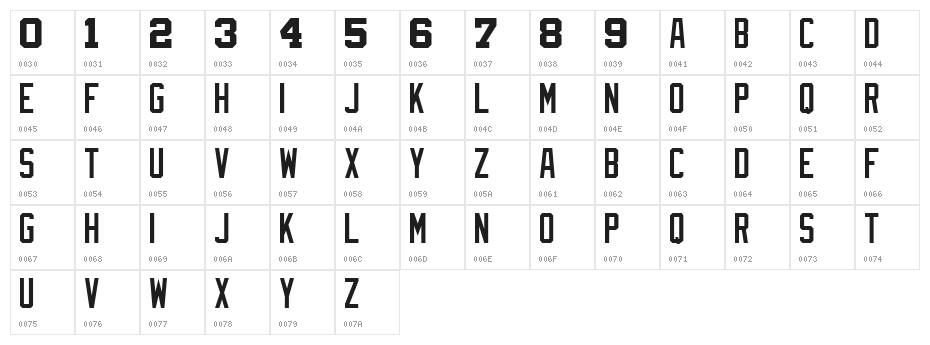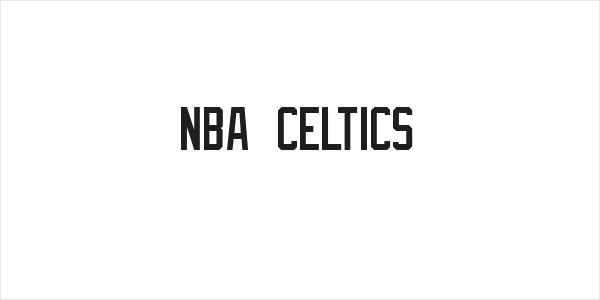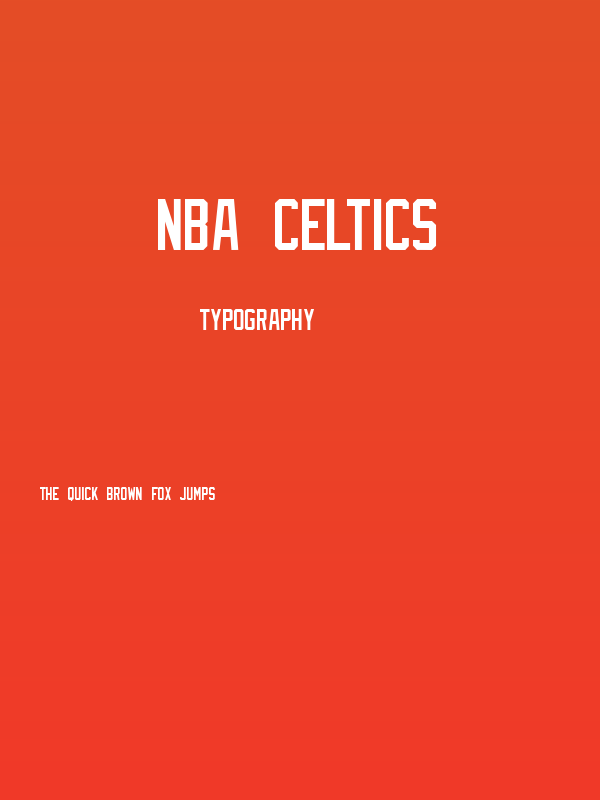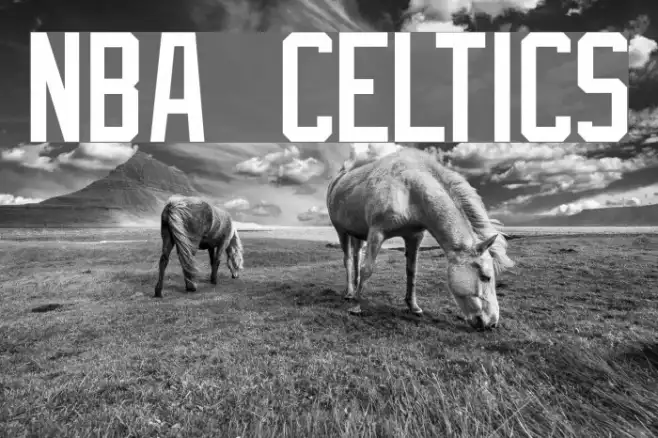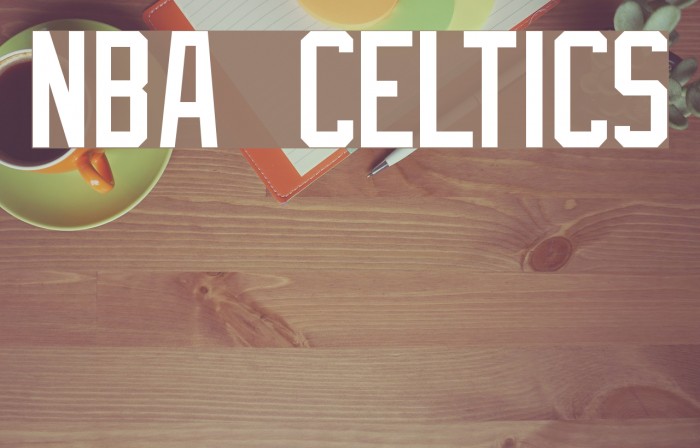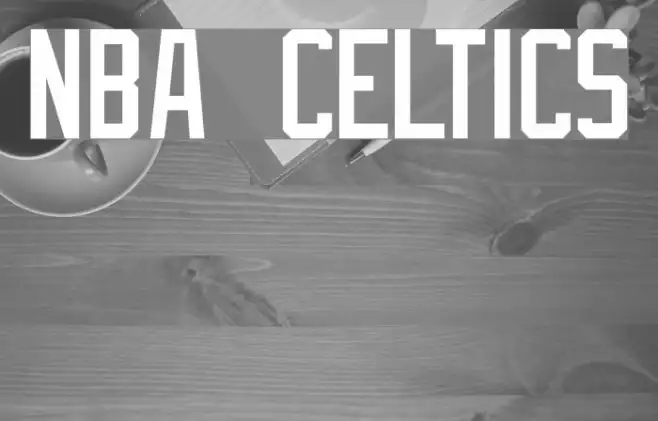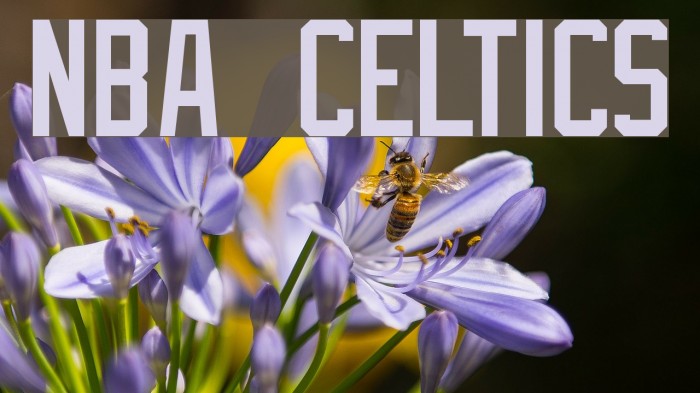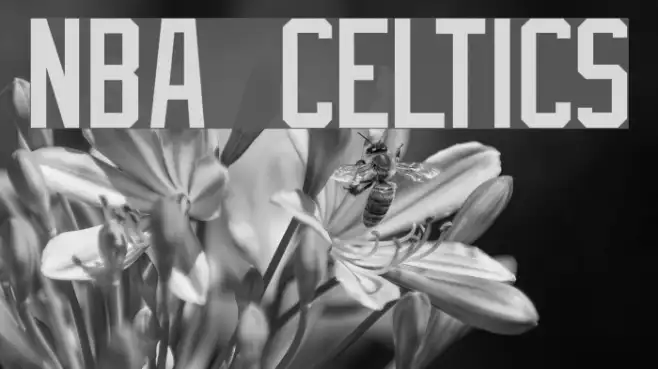
NBA Celtics Font
NBA Celtics Description
This font features a bold, geometric style with strong, angular lines and a uniform thickness throughout each character. The uppercase letters are designed with a blocky, athletic aesthetic, reminiscent of sports team jerseys. The numbers share the same robust and impactful design, making them highly legible and visually striking. The font's overall appearance is both modern and classic, capturing a sense of strength and tradition. Its clean lines and lack of ornamentation give it a straightforward, no-nonsense look that is ideal for conveying messages with authority and clarity.
| Use Case | Logos, Headlines, Sports branding |
| Proposed Projects | Ideal for sports branding, team jerseys, posters, and merchandise designs. |